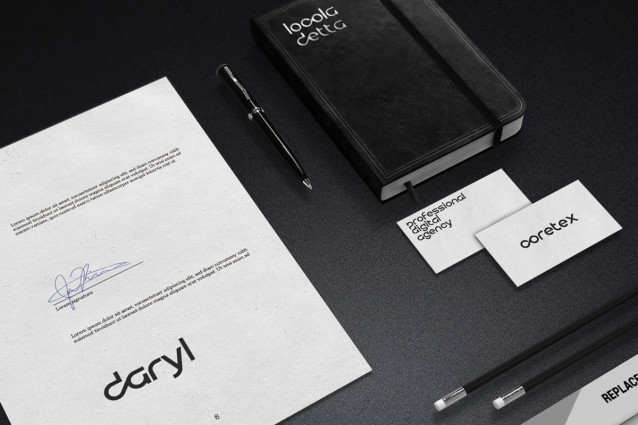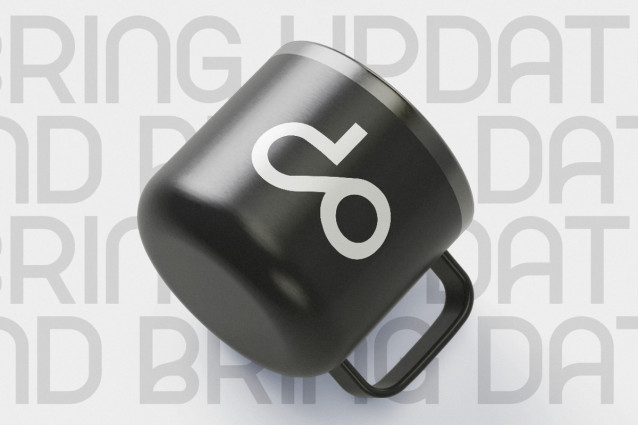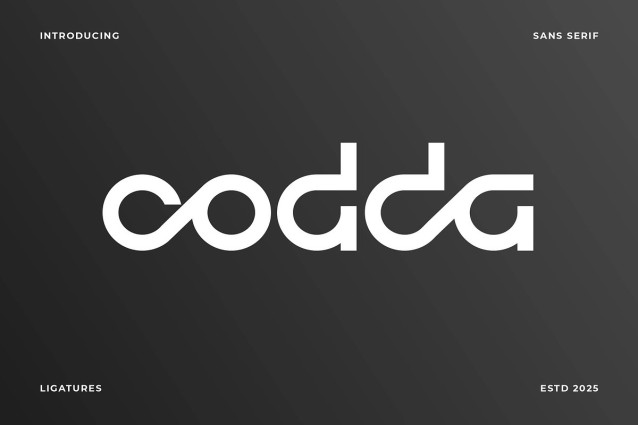
Codda Font
Codda Font is a modern logo font designed to elevate your branding with clean lines, distinctive forms, and timeless versatility. Crafted for bold identities, Codda blends geometric balance with creative character, making it the perfect choice for logos, monograms, packaging, and headlines that demand attention. This fonts are great for product logo,wedding card logo, clothing brand logo, Vintage design and much more.